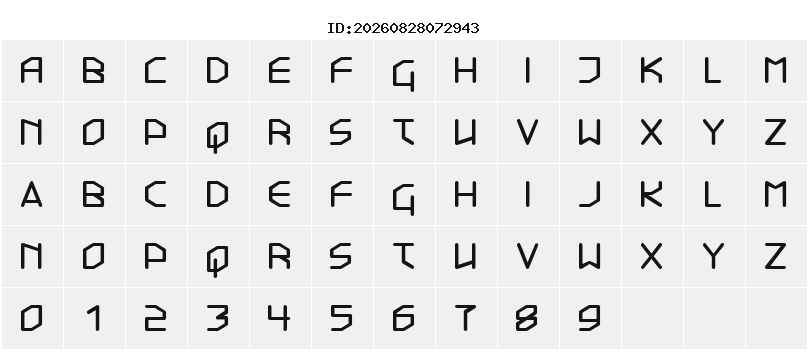
Transistor 2.15 Preview
• Font Name: Transistor 2.15
• Font ID: Transistor 2.15
• Full Font Name: Transistor 2.15
• PostScript Name: Transistor215
About Transistor 2.15.ttf
Transistor 2.15.ttf is a modern, elegant sans-serif font designed for ultimate readability and visual harmony. Perfect for branding, headlines, web design, and print materials.